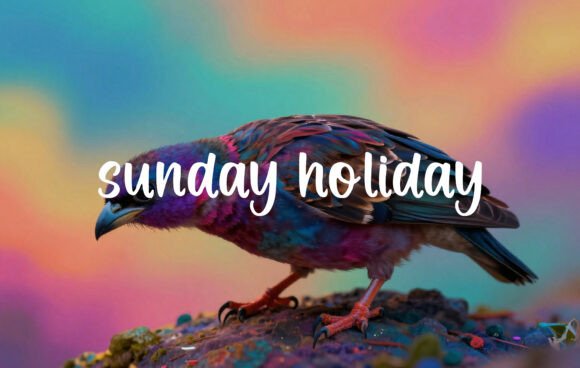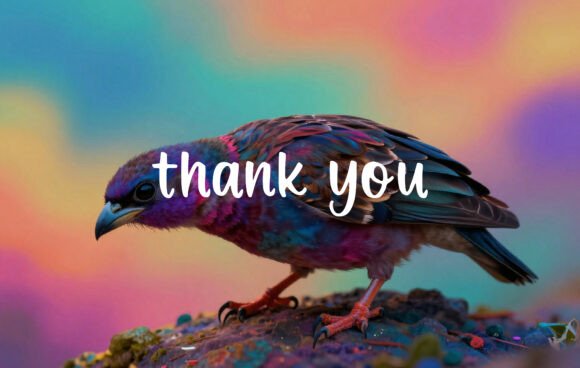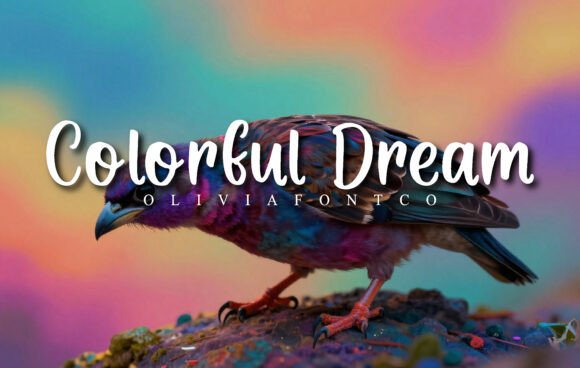
Unlock the Door to a World of Imagination with Colorful Dream Font
Are you a designer, crafty DIY enthusiast, or a creative looking for a font that can transport your audience to a world of wonder and magic? Look no further than Colorful Dream, a vibrant display font that is sure to unlock the door to a world of imagination. This typeface strikes a delightful balance between playful energy and artistic grace, making it perfect for a wide range of creative projects.
The Characteristics of Colorful Dream Font
Colorful Dream font features soft, fluid strokes that feel as natural as a handwritten note in a dream journal. The magic of this font lies in its gentle, rounded terminals and rhythmic flow. Each character is designed with a friendly, approachable weight that makes it highly versatile for various creative projects. The font’s unique characteristics make it stand out from other display fonts, giving your designs a distinctive and imaginative look.
Ideal Uses for Colorful Dream Font
Colorful Dream font is perfect for a variety of creative projects, including:
- Children’s Book Titles: Add a touch of whimsy and wonder to your children’s book titles with Colorful Dream font. Its playful energy and artistic grace will capture young readers’ attention and transport them to a world of imagination.
- Whimsical Branding: Give your brand a unique and imaginative identity with Colorful Dream font. Its soft, fluid strokes and gentle terminals will add a touch of friendliness and approachability to your brand.
- Colorful Social Media Content: Make your social media content stand out with Colorful Dream font. Its vibrant and playful energy will add a touch of excitement and joy to your posts and stories.
- Cheerful Greeting Cards: Add a touch of warmth and personality to your greeting cards with Colorful Dream font. Its friendly and approachable weight makes it perfect for conveying heartfelt messages.
Designing with Colorful Dream Font
Whether you are designing for a boutique toy store or a creative DIY blog, Colorful Dream font brings a sense of joyful authenticity and storytelling to your work. Its versatility and expressiveness make it perfect for a wide range of design projects, from branding and advertising to packaging and editorial design.
With Colorful Dream font, you can:
- Create eye-catching headlines and titles that capture attention and imagination.
- Add a touch of personality and whimsy to your designs.
- Convey a sense of friendliness and approachability to your audience.
- Transport your audience to a world of wonder and magic.
Why Choose Colorful Dream Font?
So why choose Colorful Dream font for your design projects? Here are just a few reasons:
- Unique and Expressive: Colorful Dream font is a one-of-a-kind typeface that adds a touch of imagination and creativity to your designs.
- Versatile: Its friendly and approachable weight makes it perfect for a wide range of creative projects.
- Easy to Read: The font’s soft, fluid strokes and gentle terminals make it easy to read, even in large blocks of text.
- High-Quality: Colorful Dream font is a high-quality typeface designed to deliver exceptional results in your designs.
Colorful Dream font is a vibrant display font that unlocks the door to a world of imagination. Its unique characteristics, versatility, and expressiveness make it perfect for a wide range of creative projects. Whether you are a designer, crafty DIY enthusiast, or a creative looking for a font that can transport your audience to a world of wonder and magic, Colorful Dream font is the perfect choice. So why wait? Let your designs take flight with Colorful Dream font and discover a world of imagination and creativity.